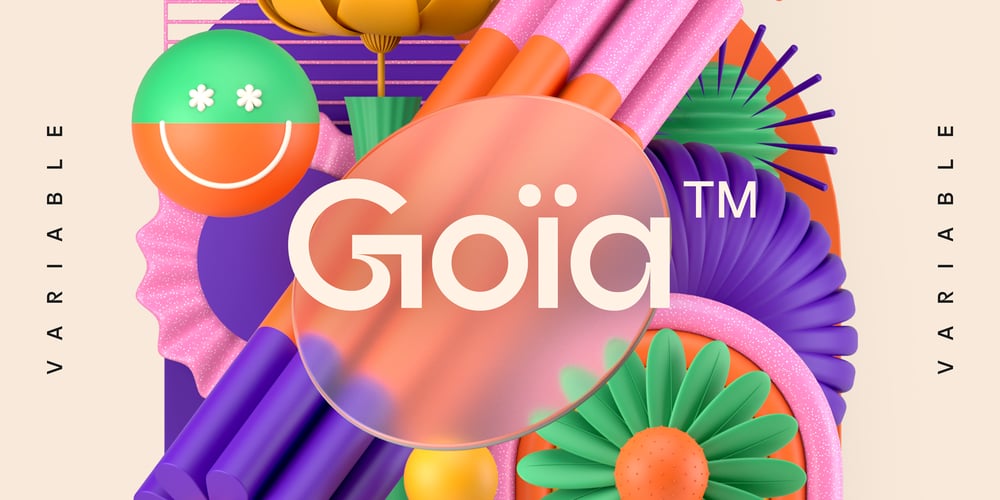
Goia Font Family was designed by Jérémie Gauthier and published by Almarena. Goia contains 38 styles and family package options. Introducing Goïa™, a variable sans serif typeface available in 2 styles: A first one, very readable with a touch of originality, ideal for body text and a second one “Display”, more impactful with a more assertive originality. Both styles are available in a variable or static version (9 weights + italics) with many alternates divided into 3 stylistic sets.Whether you are working on a branding project, an editorial project or any other graphic project, Goïa™ is the perfect choice for a modern and elegant look with a touch of personality.